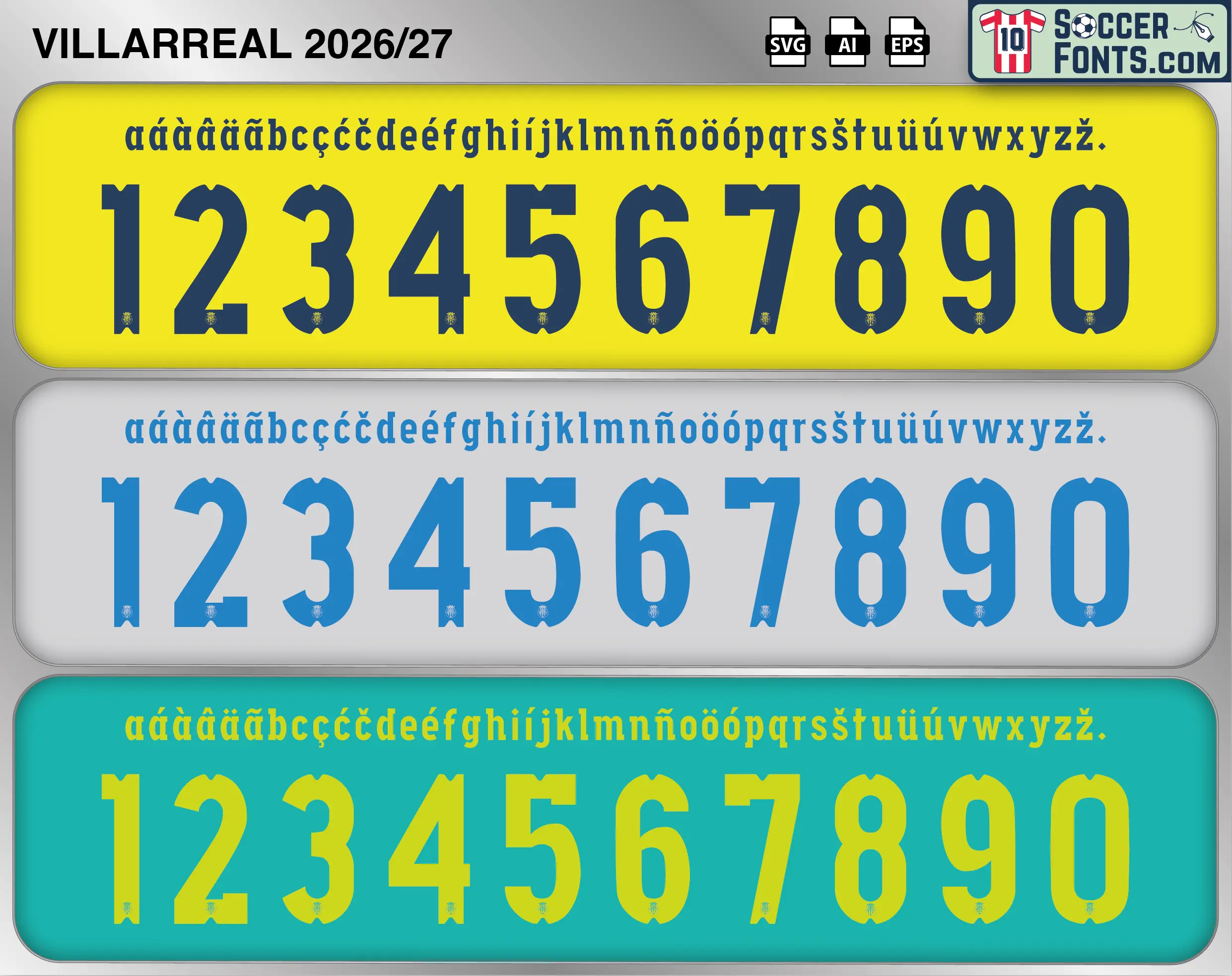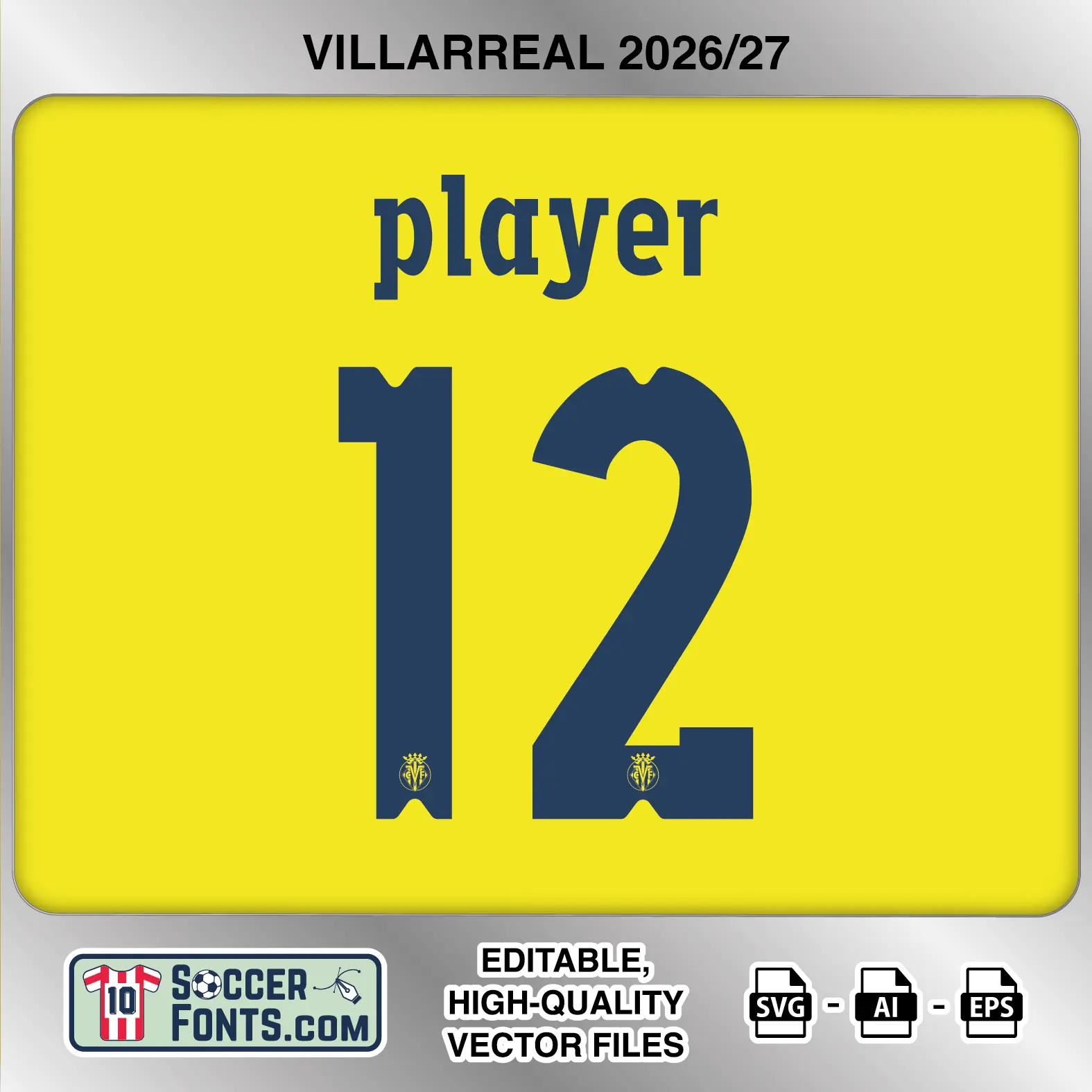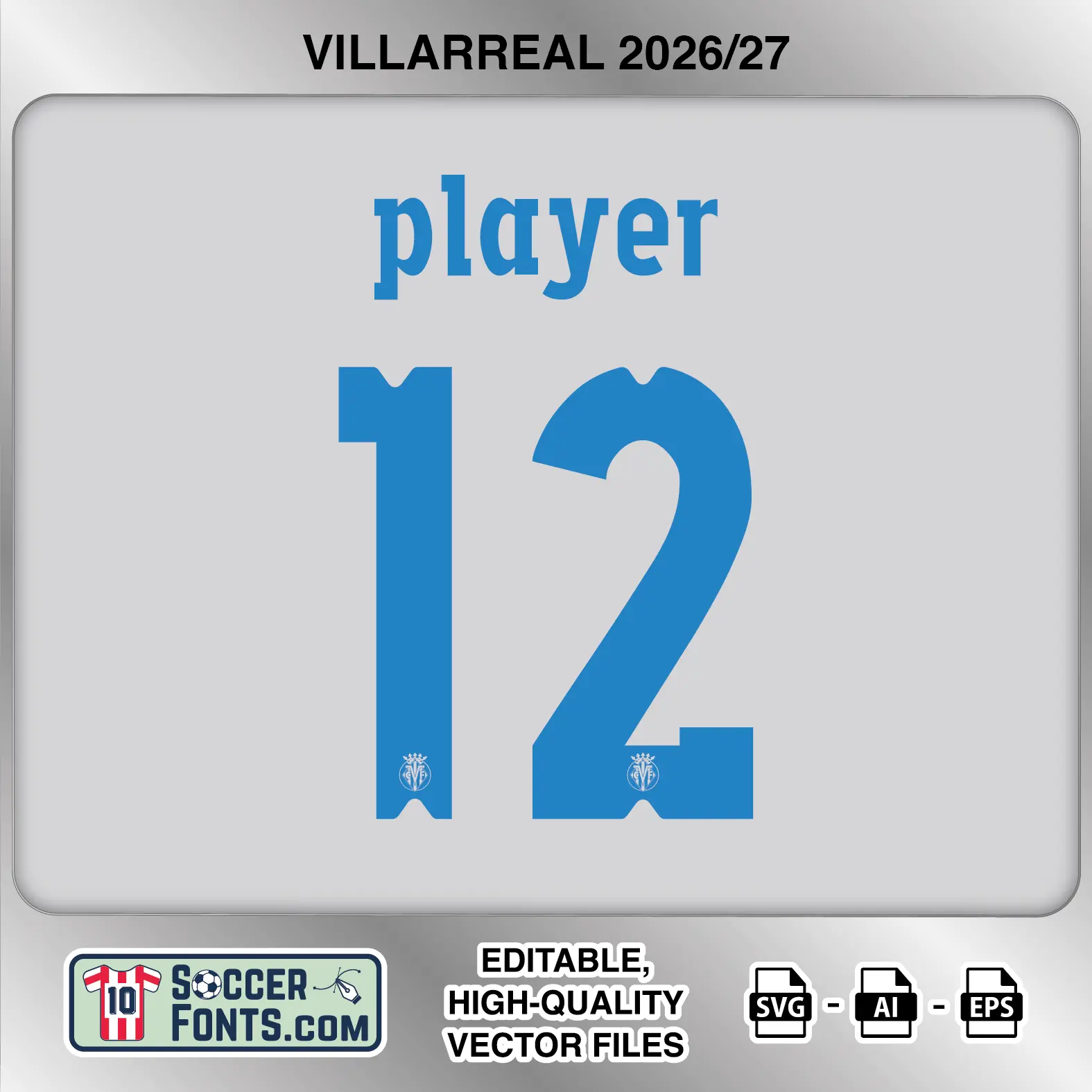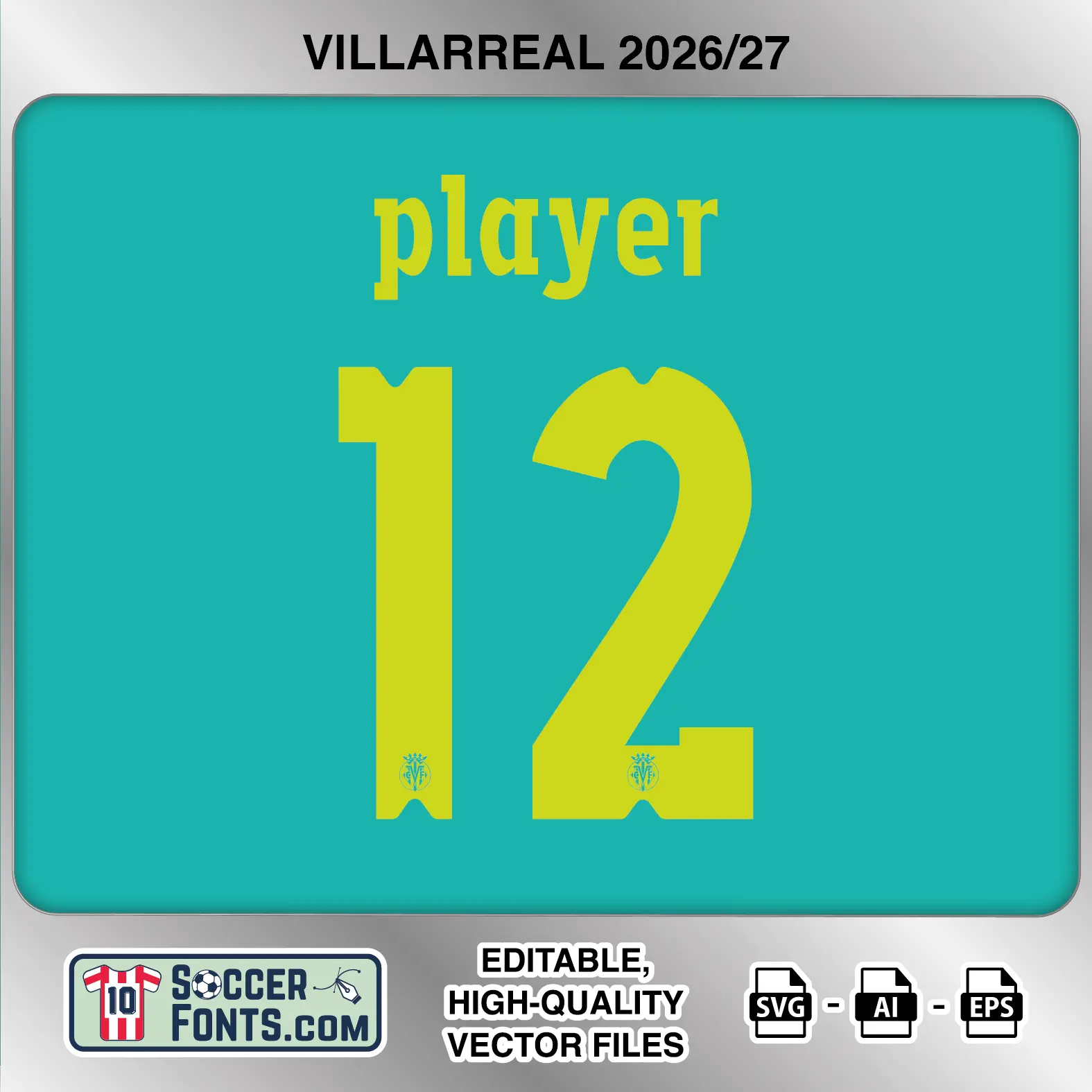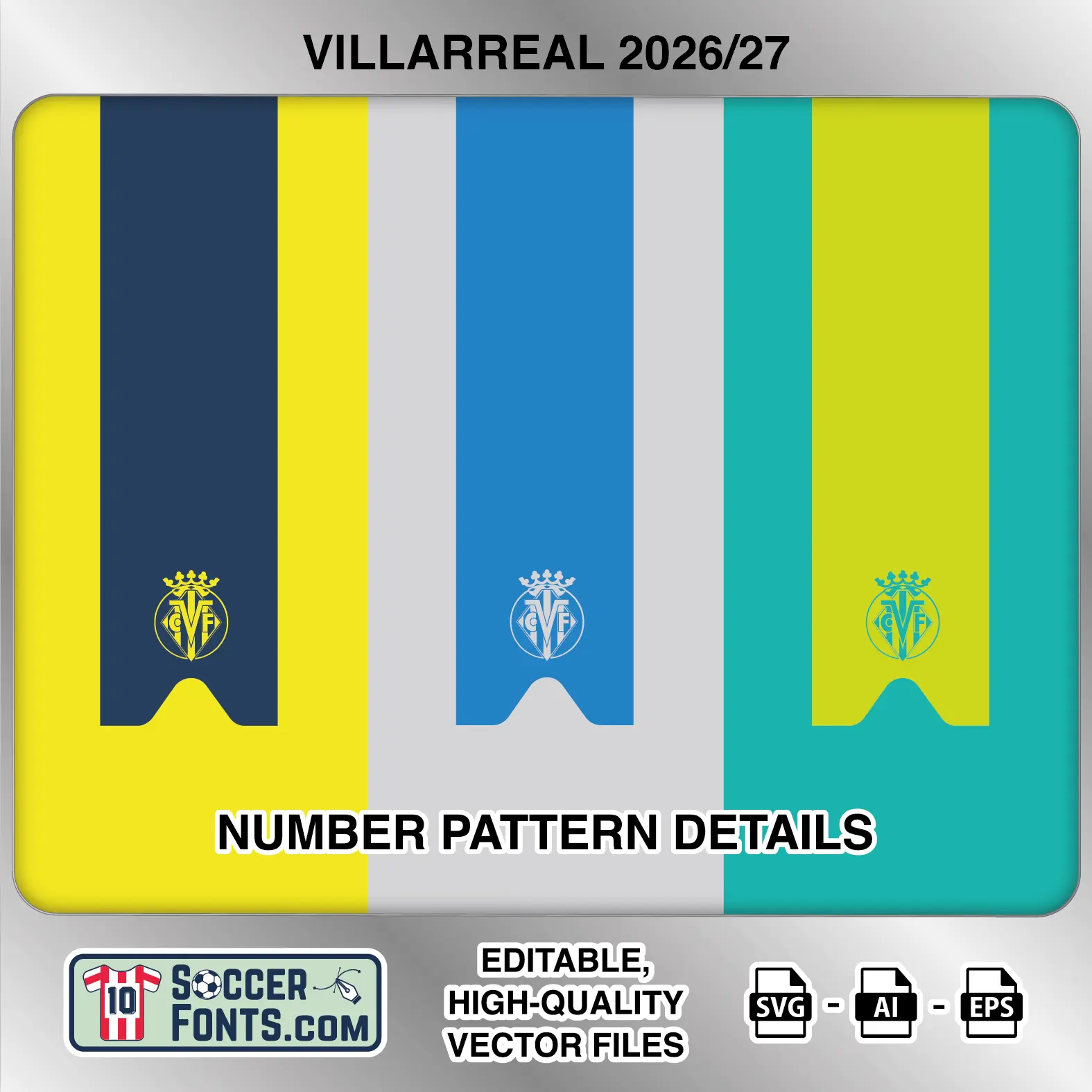
About Villarreal 2026-27 Font
Download Villarreal 2026-27 Font, an editable soccer jersey lettering design in vector format inspired by the Villarreal typography used for the club’s 2026-27 UEFA Champions League campaign. This European competition lettering is prepared for Villarreal shirt recreations, custom jersey projects, football kit mockups and sports graphic design workflows.
Visual Identity of the Font Design :
The lettering has a distinctive character that separates the player names from the much larger number set. Names use lowercase characters with pronounced slab-serif details, compact spacing and a slightly traditional typographic appearance. The numerals are tall, heavy and comparatively simple, combining broad straight strokes with rounded sections.
A recurring feature across the number set is the small V-shaped notch cut into the upper and lower edges. It is particularly visible on the 1, 2, 3, 6, 8, 9 and 0 and gives the otherwise solid shapes a recognizable identity. The 2 has a broad curved upper section flowing into a long diagonal, the 4 uses a large open triangular construction, and the 8 and 0 have narrow vertical counters. A small Villarreal crest appears near the bottom of every numeral. The supplied Champions League previews show dark navy lettering on yellow, blue lettering on a light background, and bright yellow-green lettering on turquoise. An extended accented lowercase character set is also included.
Context of 2026-27 Season for Villarreal :
The Villarreal 2026-27 Font represents the Yellow Submarine during a second consecutive season in the UEFA Champions League league phase. Villarreal qualified after finishing third in Spain in 2025-26, returning to Europe’s leading club competition with another opportunity to build on the previous campaign.
Villarreal began their 2026-27 European schedule away to Borussia Dortmund on 8 September, where a five-goal match ended 3-2 in Dortmund’s favour. The Villarreal 2026-27 Font UCL will also feature during a demanding league-phase programme that includes home matches against Napoli, Paris Saint-Germain, Sabah and Manchester United, alongside away fixtures at Liverpool, Slavia Praha and Fenerbahçe.
That schedule places Villarreal against clubs from several of Europe’s major leagues while giving the club’s 2026-27 shirts a different context on Champions League nights. The Villarreal 2026-27 Font is specifically suited to recreating these European shirt configurations rather than treating the artwork as standard La Liga lettering.